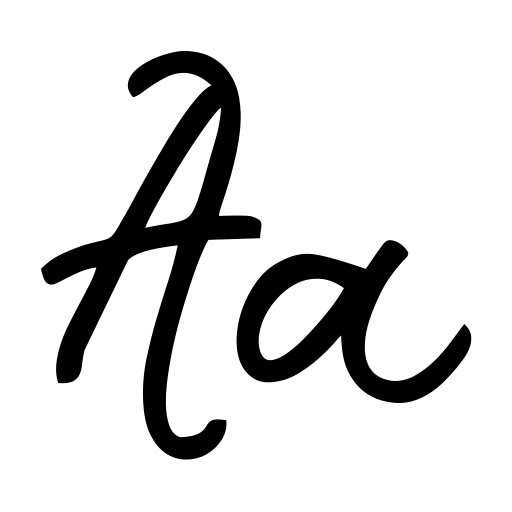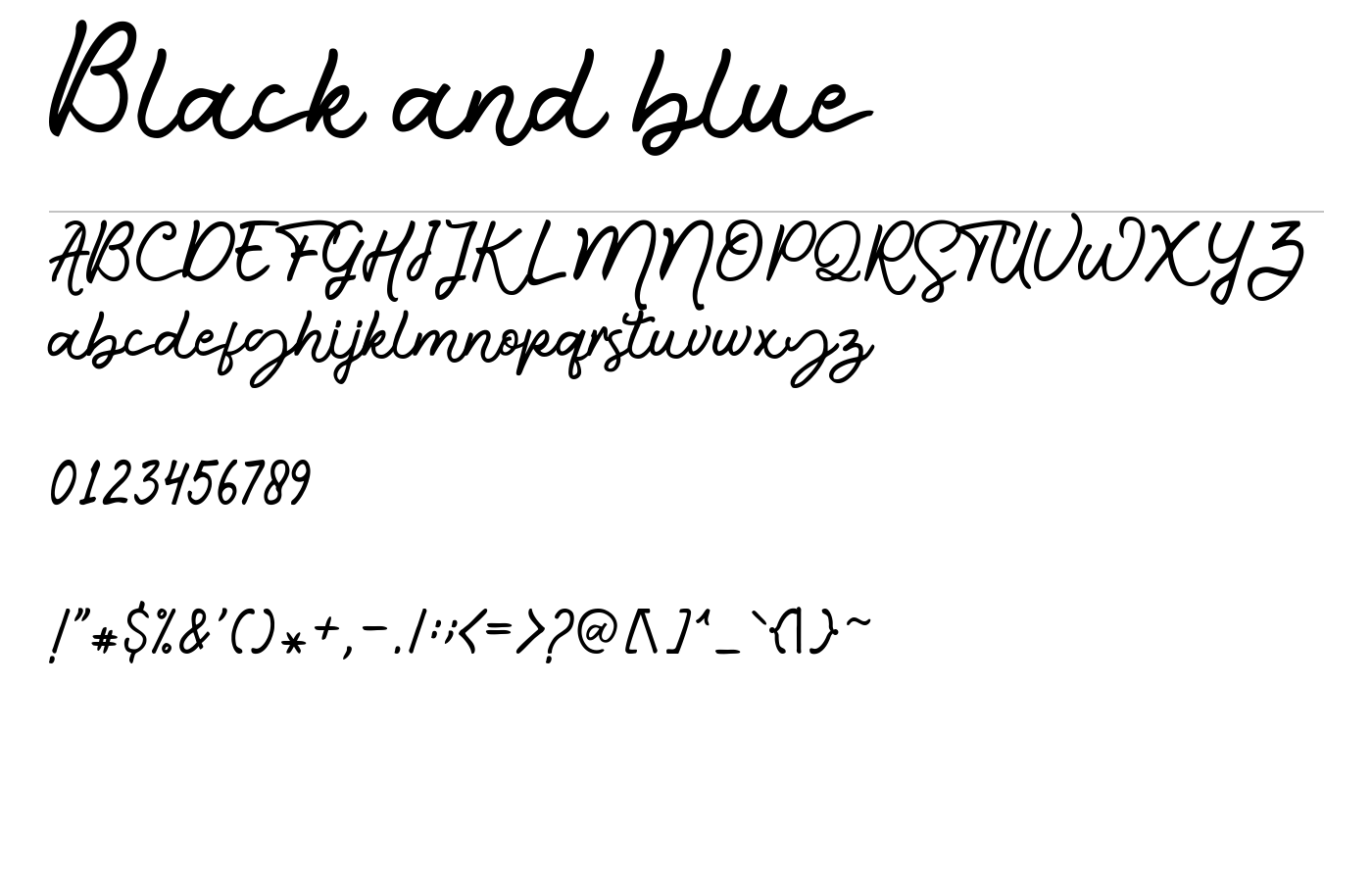
Black and Blue is a lively and elegant script font characterized by its smooth, flowing strokes and balanced contrast. Its handwriting style with distinct, slender letterforms gives it a personal and approachable feel, making it ideal for creative and modern branding, invitations, and editorial use where a touch of sophistication and warmth is desired. This font works well in designs that seek a friendly yet refined expression, perfect for both display and short text applications.
Black and blue Font
About Black and blue Font
| Font family | Black and blue Font |
| Designer | Juliana Thahir |